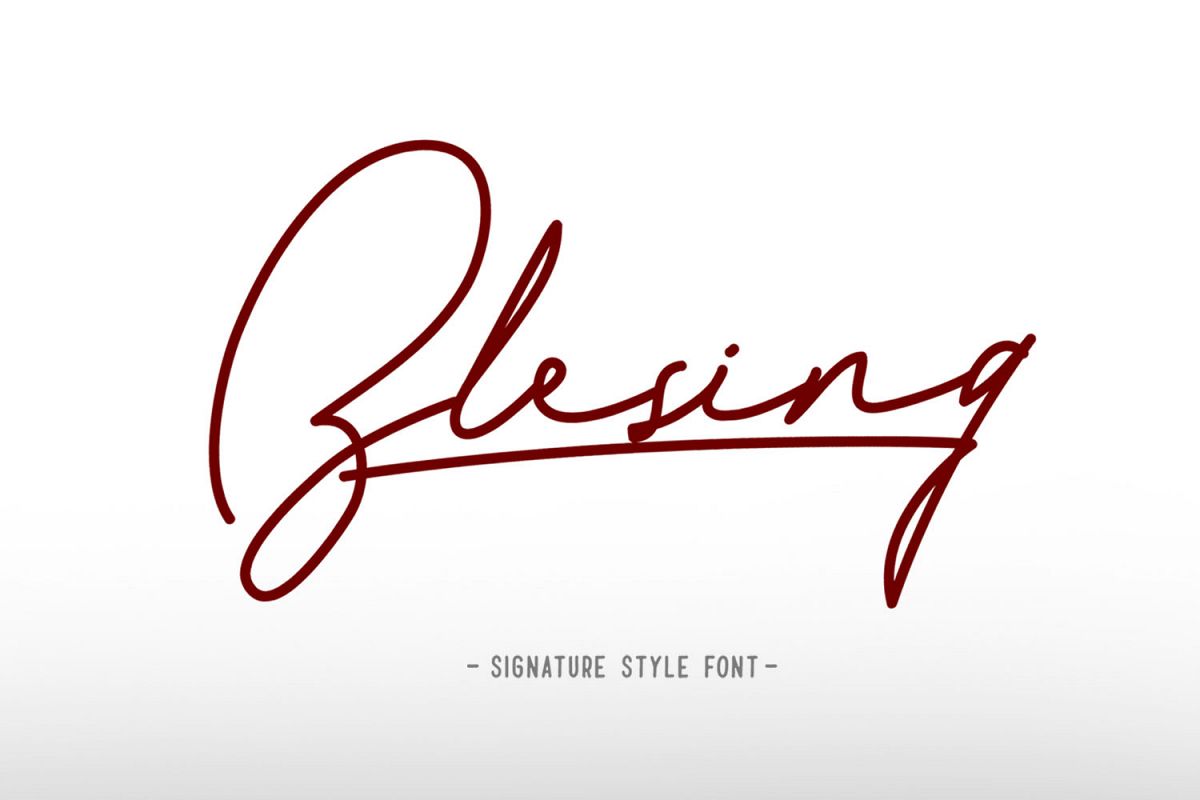
Blesing signature style
Blesing
Introduce Blesing signature font from Qiwbrother studio. Blesing also performed in monoline style with more natural lines and neat. You can combine regular characters with alternate characters for any design that you need. Blesing very suitable for logos, branding, posters, apparel, layout design, tagline, etc